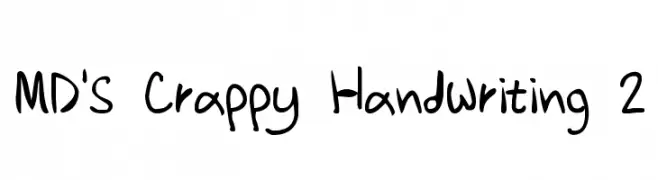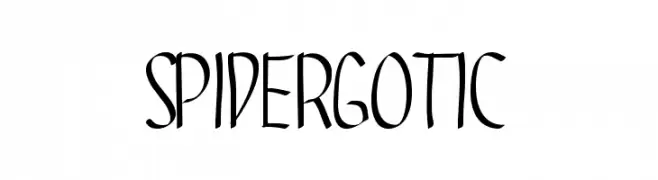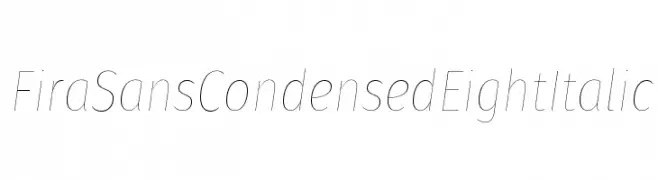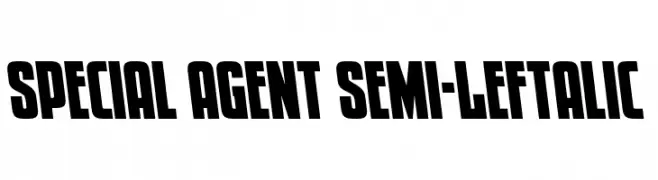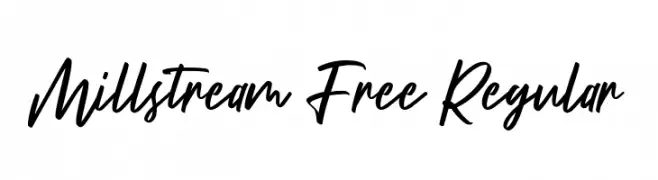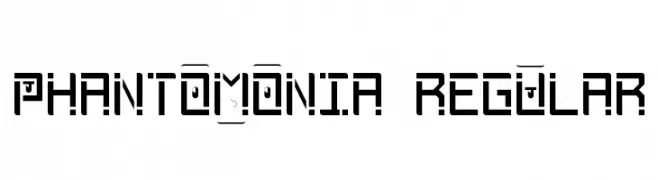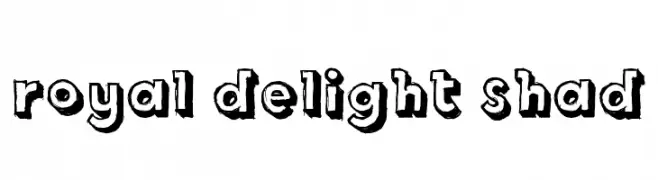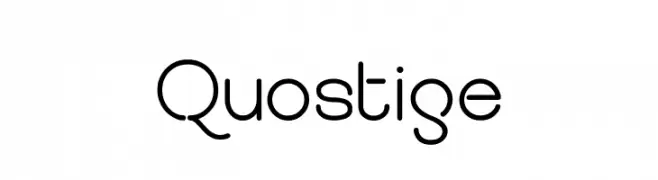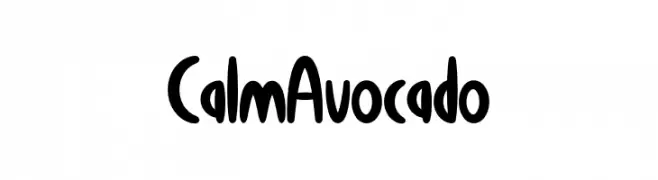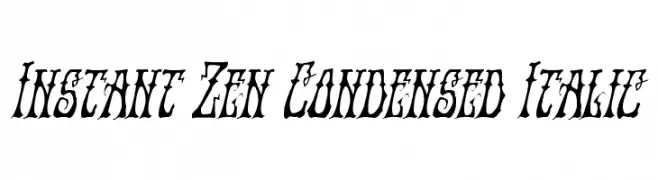
A playful, handwritten-style font with irregular, whimsical strokes.
A whimsical, hand-drawn font with a modern gothic flair.
A playful and whimsical script font with elegant, flowing cursive letters.
A modern, condensed italic font with a sleek, minimalist design and low contrast.
A bold, futuristic italic font with sharp, angular edges.
A bold, left-slanted font with a modern and assertive style.
A dynamic, handwritten script font with fluid, connected strokes.
A bold, geometric font with a futuristic, digital aesthetic.
A bold, playful font with a three-dimensional shadow effect.
A modern, geometric font with smooth, rounded edges and consistent stroke widths.
A dot matrix style font inspired by classic LED displays, offering a retro yet modern look.
A playful, bold font with rounded, hand-drawn strokes.
A condensed, italicized font with sharp, angular edges and medium contrast.
A bold, geometric font with rounded edges and a modern, futuristic style.
A bold, art deco-inspired font with sharp, angular lines and high contrast.
An elegant, decorative script font with intricate swashes and flowing letterforms.
A bold, geometric font with sharp angles and a futuristic style.
A bold, textured script font with a modern, hand-drawn feel.
A dynamic handwritten font with expressive, brush-like strokes.
An elegant, flowing script font with ornate uppercase and connected lowercase letters.
A bold, natural handwritten font with expressive, fluid strokes.
A playful font with letters embedded in construction vehicle graphics.
A bold, italic, halftone font with a futuristic and dynamic style.
A bold, italicized font with a dynamic, handwritten style.
A bold, italicized font with a modern, dynamic style.
A playful, casual handwritten font with smooth, flowing lines.
A decorative and artistic font with bold, intricate designs and whimsical flair.
A thin, handwritten font with a casual and elegant style.
A bold, expressive script font with dynamic flow and smooth curves.
A bold, hand-drawn font with a graffiti-like, expressive style.